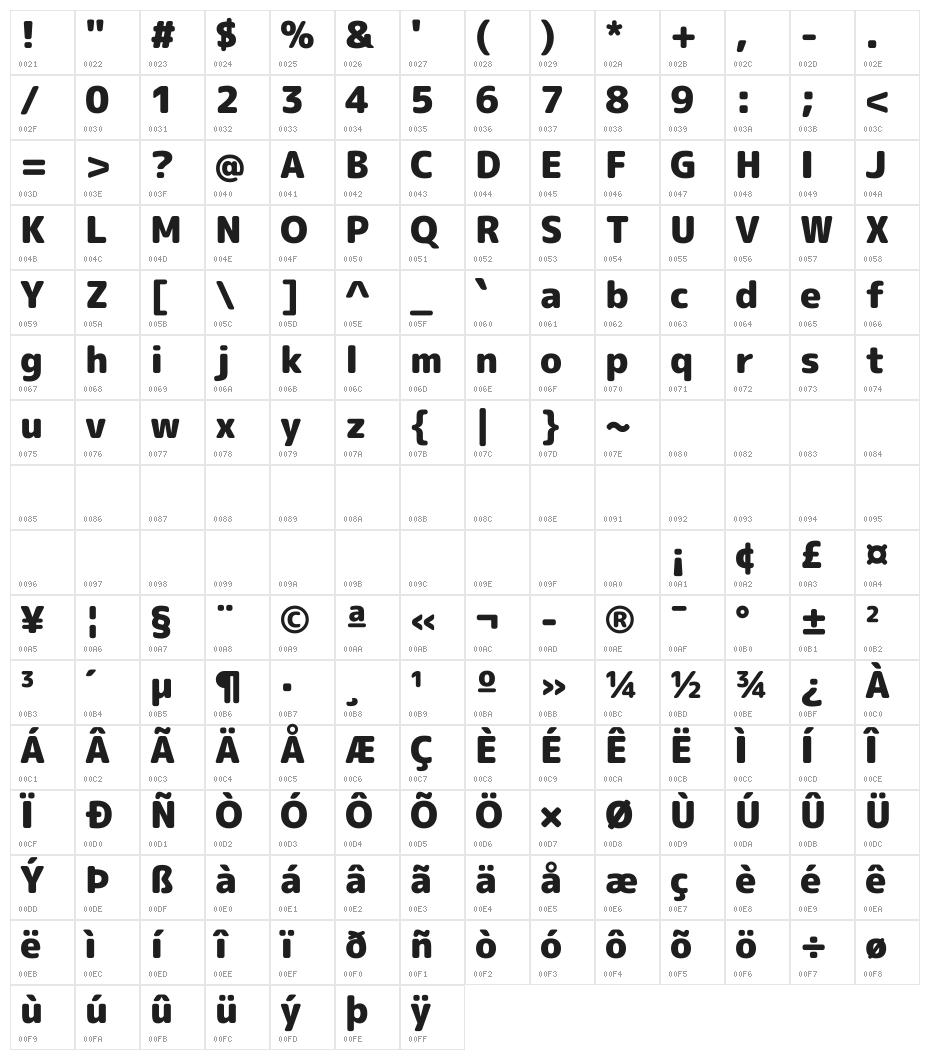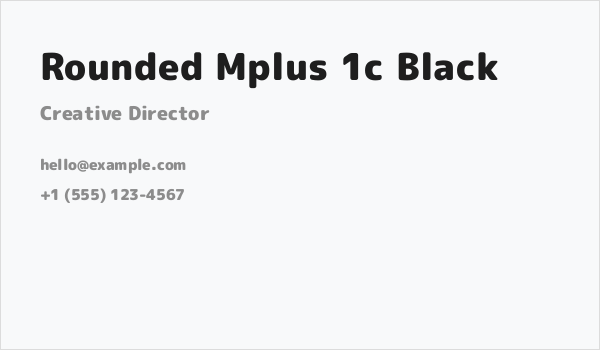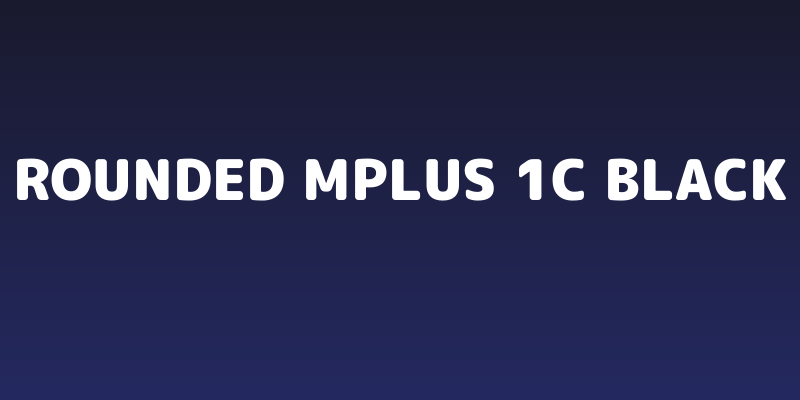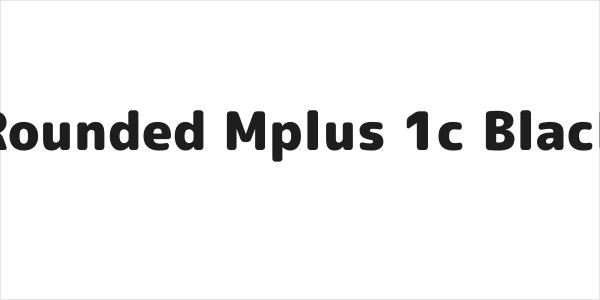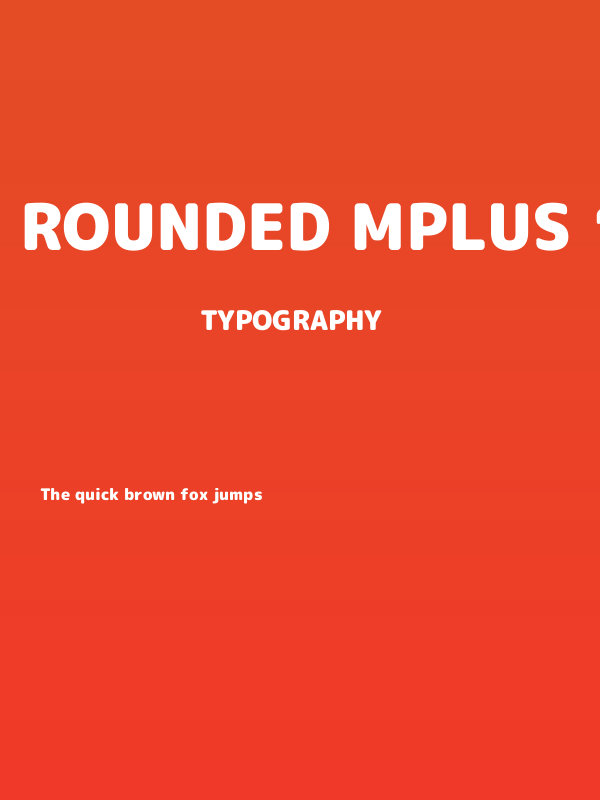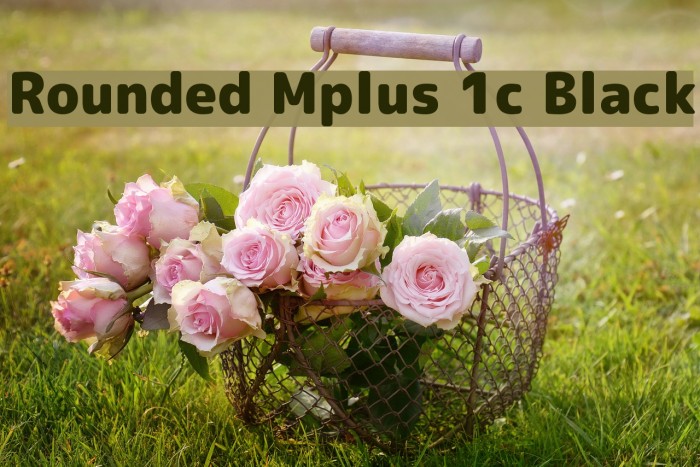
Rounded Mplus 1c Black Font
Rounded Mplus 1c Black Description
This font features a bold and rounded style, characterized by its thick, smooth curves and uniform stroke width. The letters are well-balanced with a modern, friendly appearance, making it highly legible. Its rounded terminals and consistent weight give it a playful yet professional look, suitable for various design needs. The numerals and special characters maintain the same rounded aesthetic, ensuring a cohesive appearance across all text elements. This font's design emphasizes clarity and approachability, making it versatile for both digital and print media.
| Proposed Projects | Ideal for branding, headlines, posters, and digital content where a modern and approachable look is desired. |